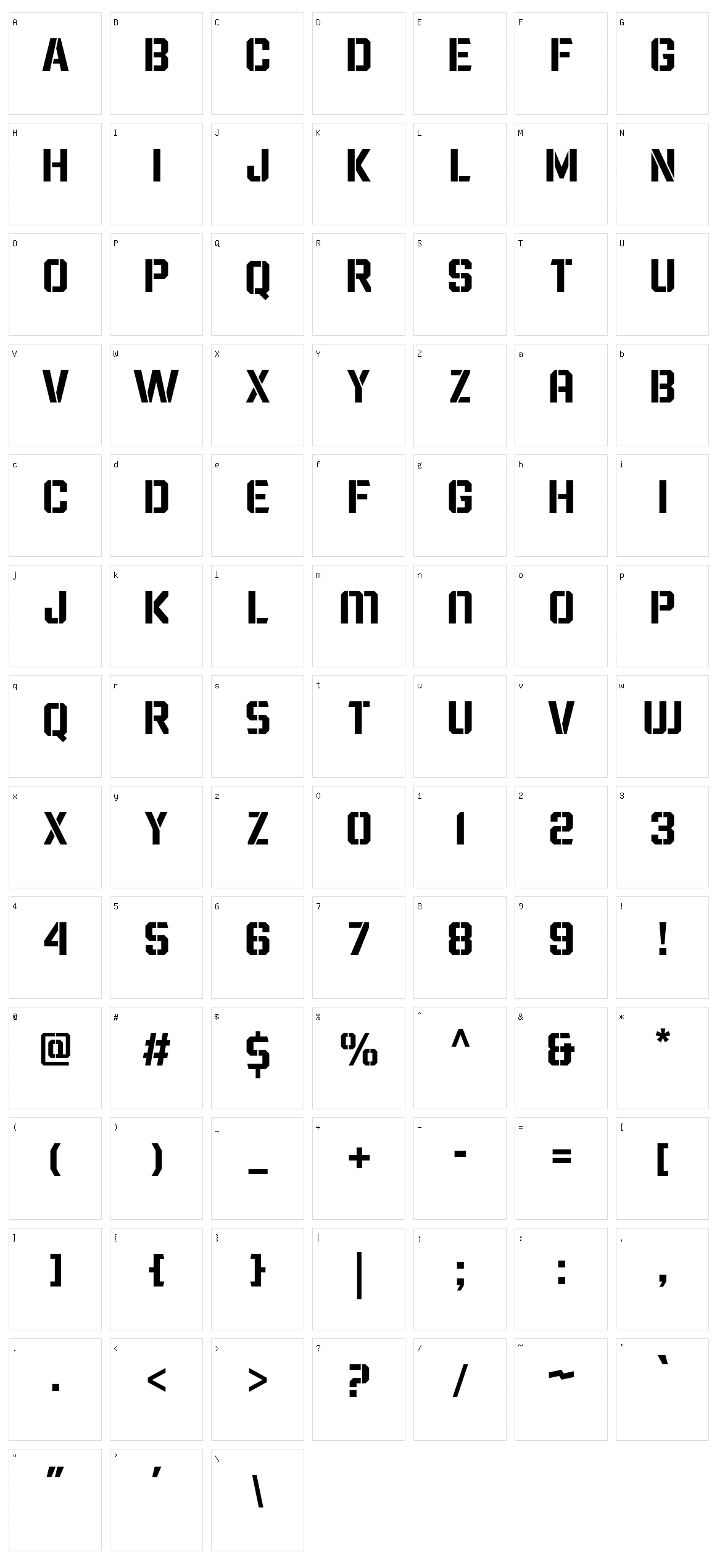
The free font Wargate is carefully designed by Arterfak Project, showcasing a thoughtful balance of creativity and usability and falls under the Stencil font style. When you download the ZIP file, it contains only 94.33 KB of font files, making it lightweight and quick to download. Please review the license details below to understand permitted usage and distribution rights. If license information is not available, we recommend using this font for personal projects only or contacting the author directly for commercial usage permissions.